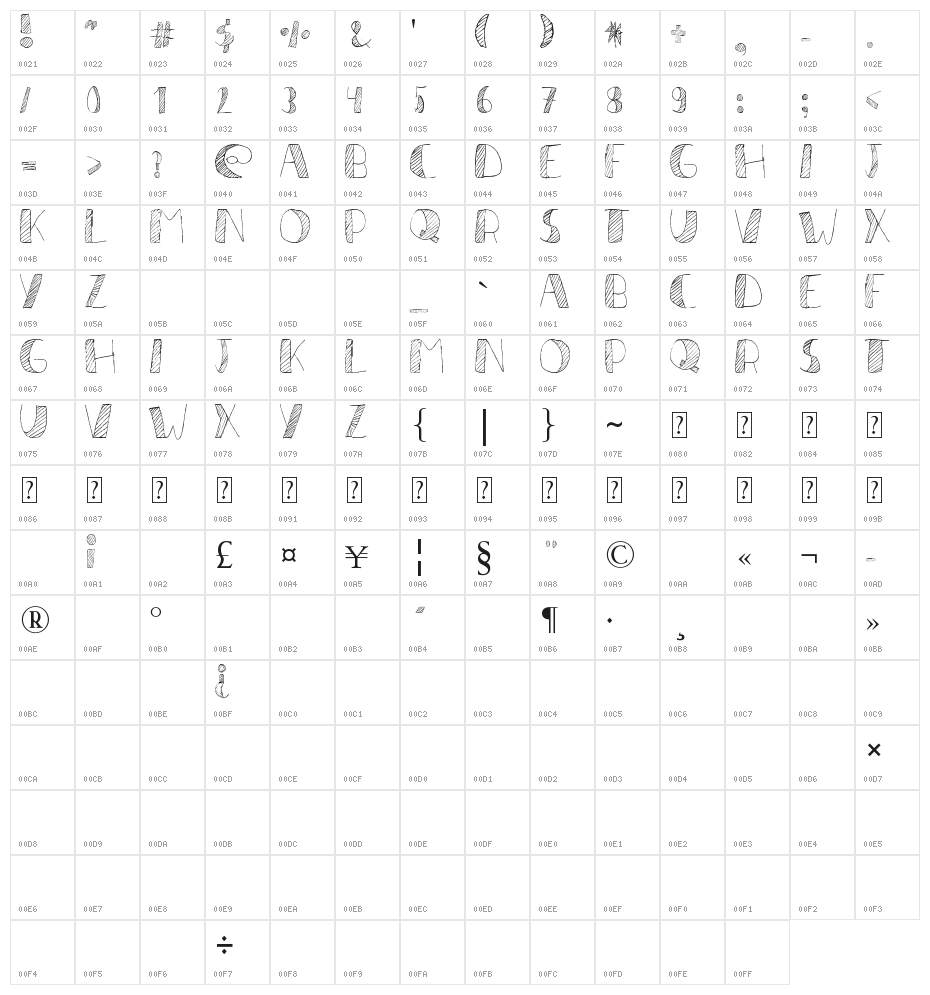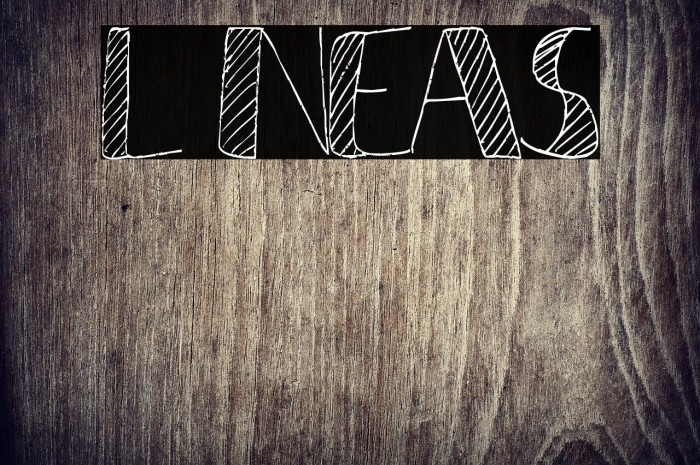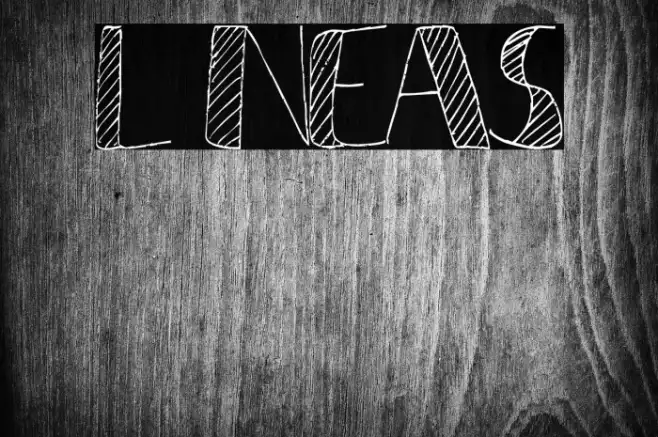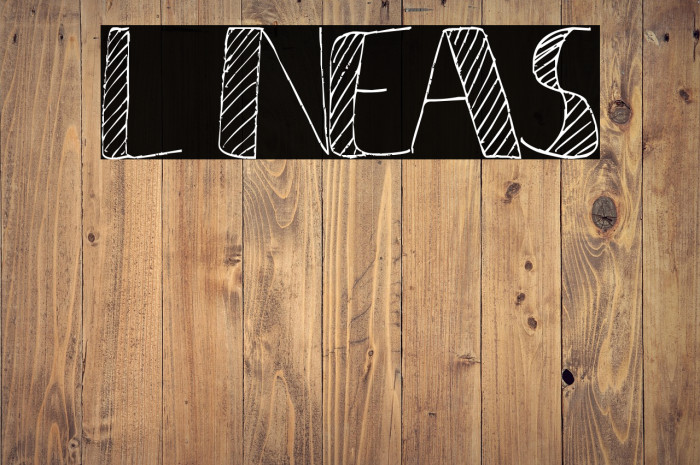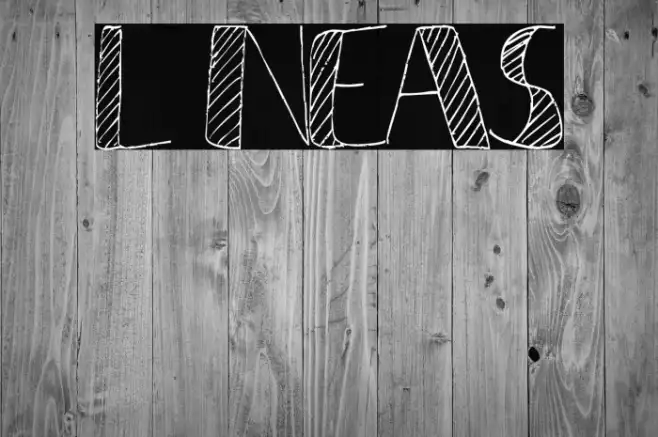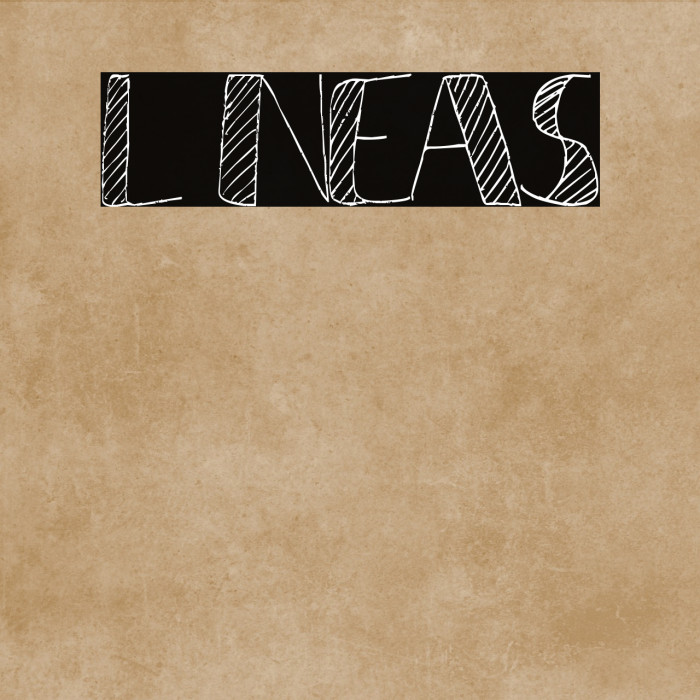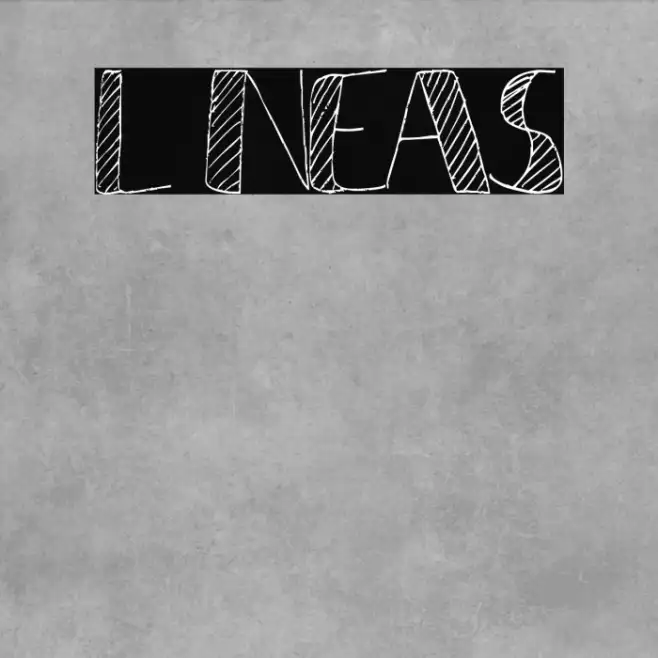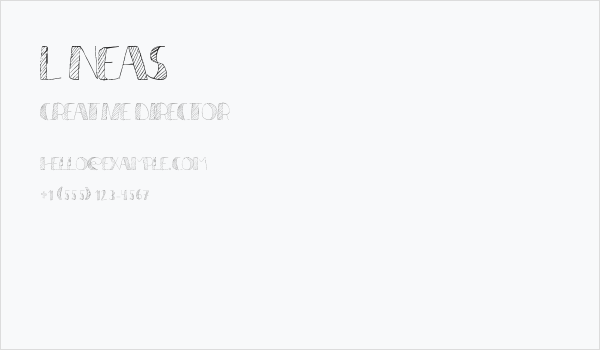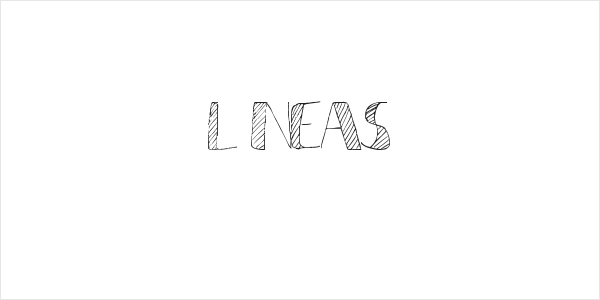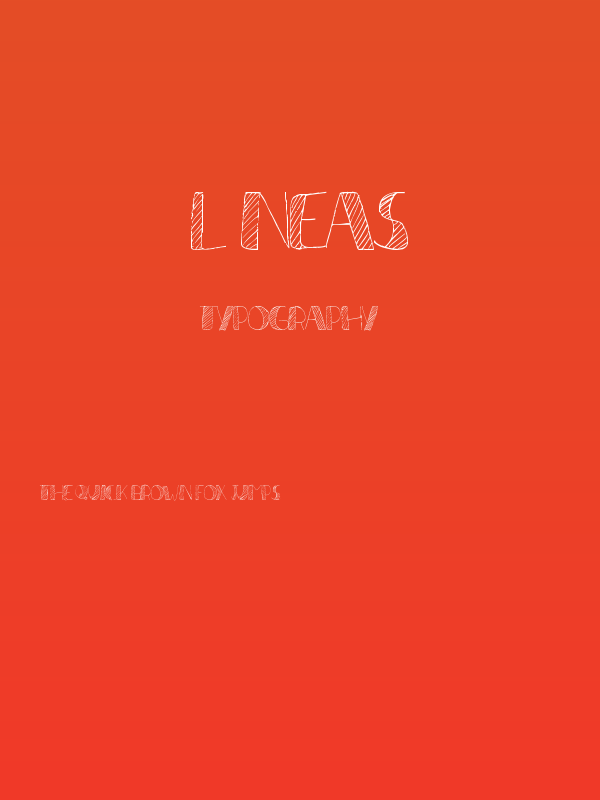
Líneas Font
Líneas Description
This font features a unique hand-drawn style with a sketch-like appearance, characterized by irregular, playful lines and a casual, artistic flair. The letters are filled with diagonal hatching, giving them a textured look that adds depth and personality. The uppercase and lowercase letters maintain a consistent style, with quirky angles and a slightly uneven baseline that enhances the handcrafted feel. The numerals and special characters follow the same aesthetic, ensuring a cohesive look across all glyphs. This font is ideal for projects that require a creative, informal touch.